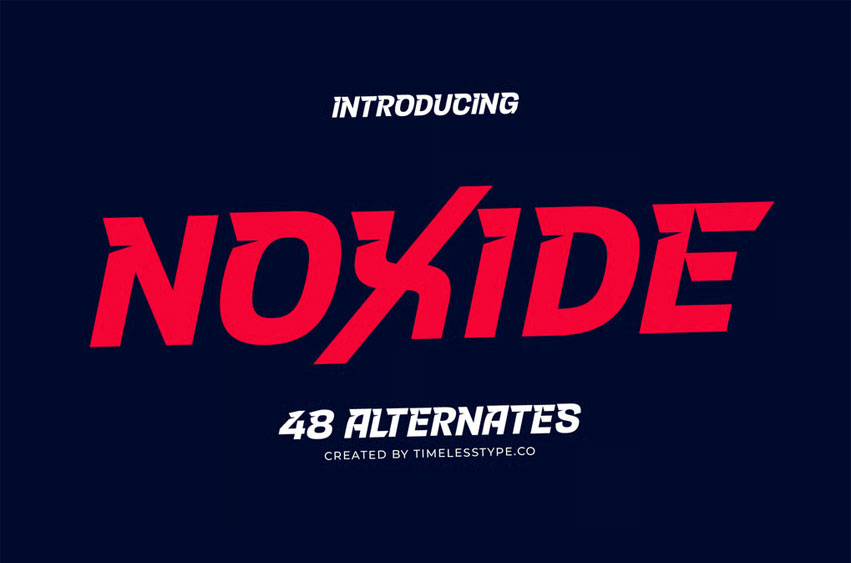
Noxide Font
Noxide Font is a bold modern display font built for speed, power, and high-impact visuals. With its sharp angles, aggressive curves, and sporty dynamic flow, this typeface is perfect for racing themes, esports branding, gaming titles, tech posters, energetic social media graphics, merchandise, and attention-grabbing logos. Noxide delivers a fast, electric, and competitive personality that instantly elevates any design.
Featuring 48 alternates, Noxide gives designers tons of creative freedom to craft custom wordmarks, stylized headlines, action-packed compositions, and bold futuristic layouts. Its strong structure, dynamic slants, and modern edge make it ideal for projects that demand excitement, motion, and a powerful visual punch.